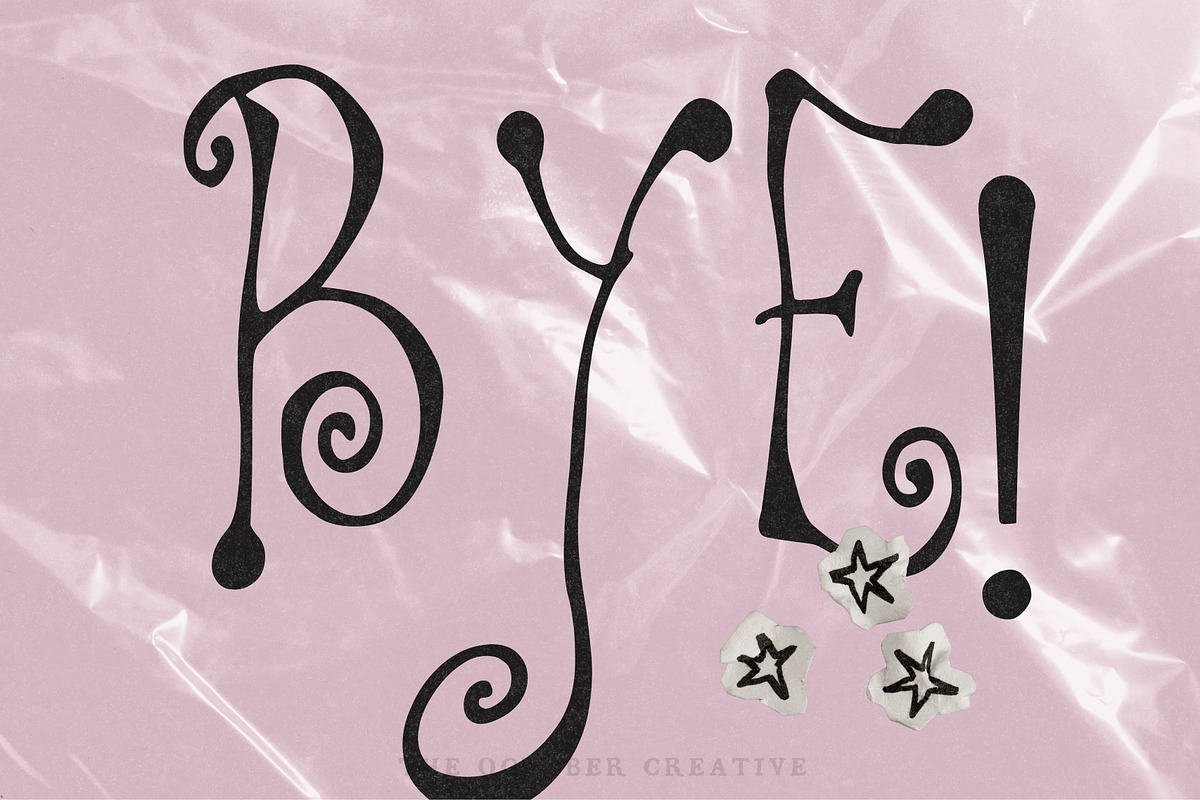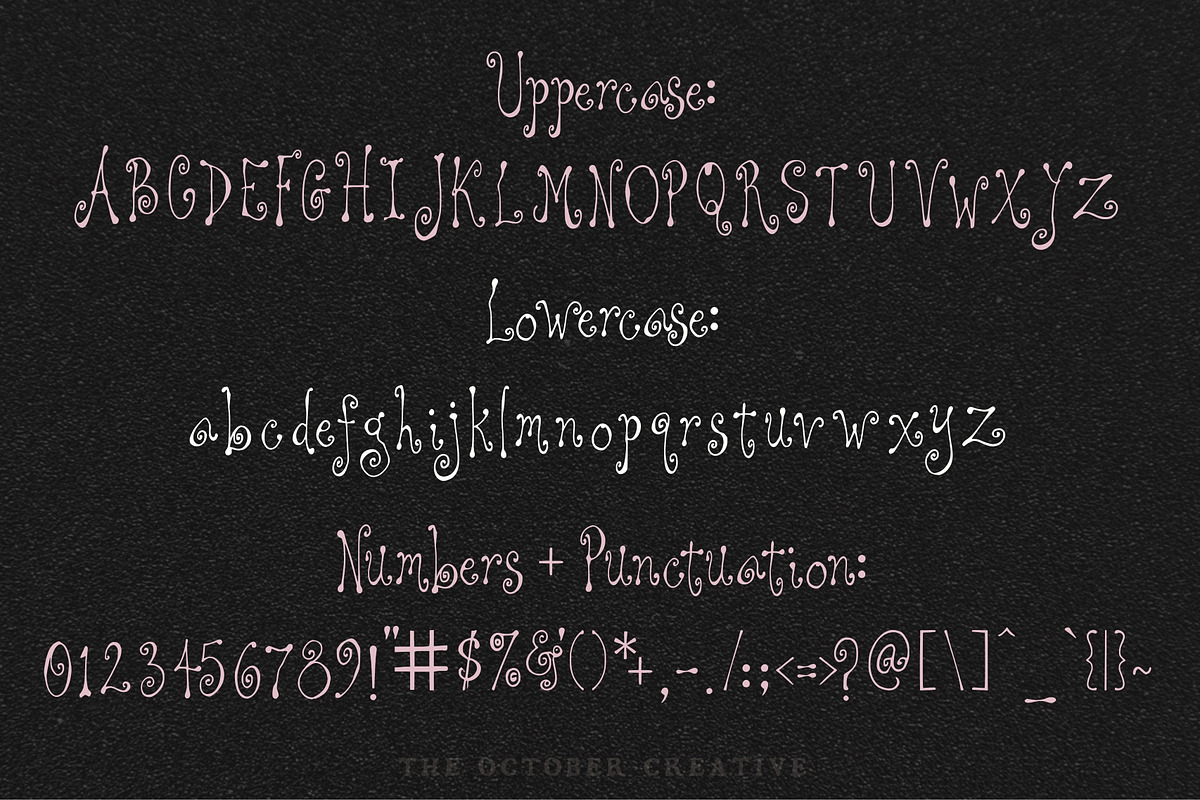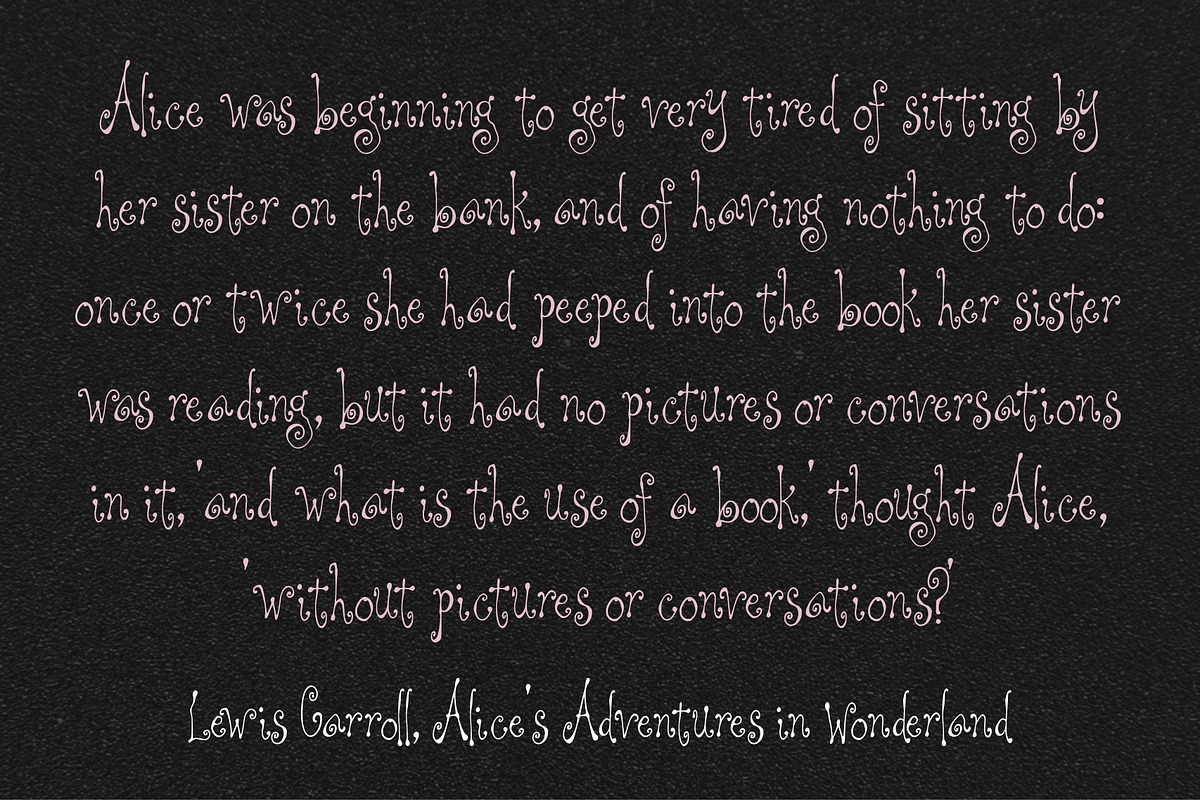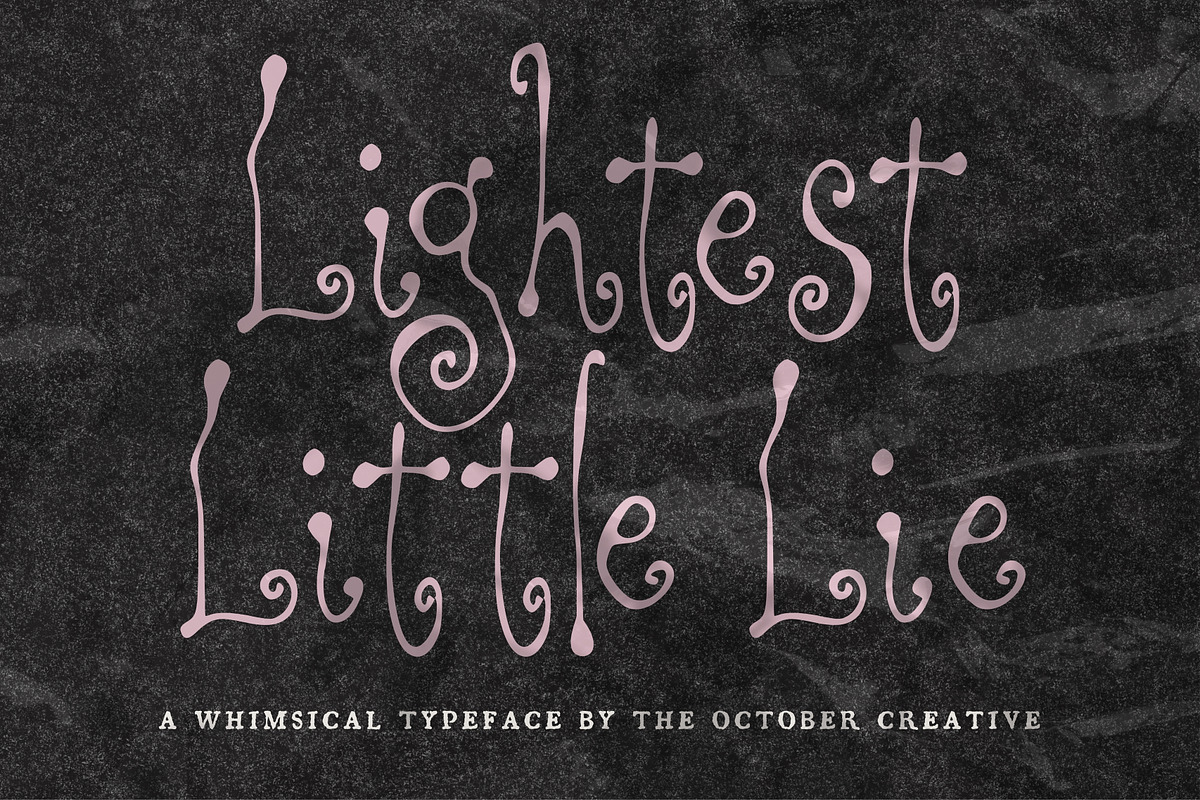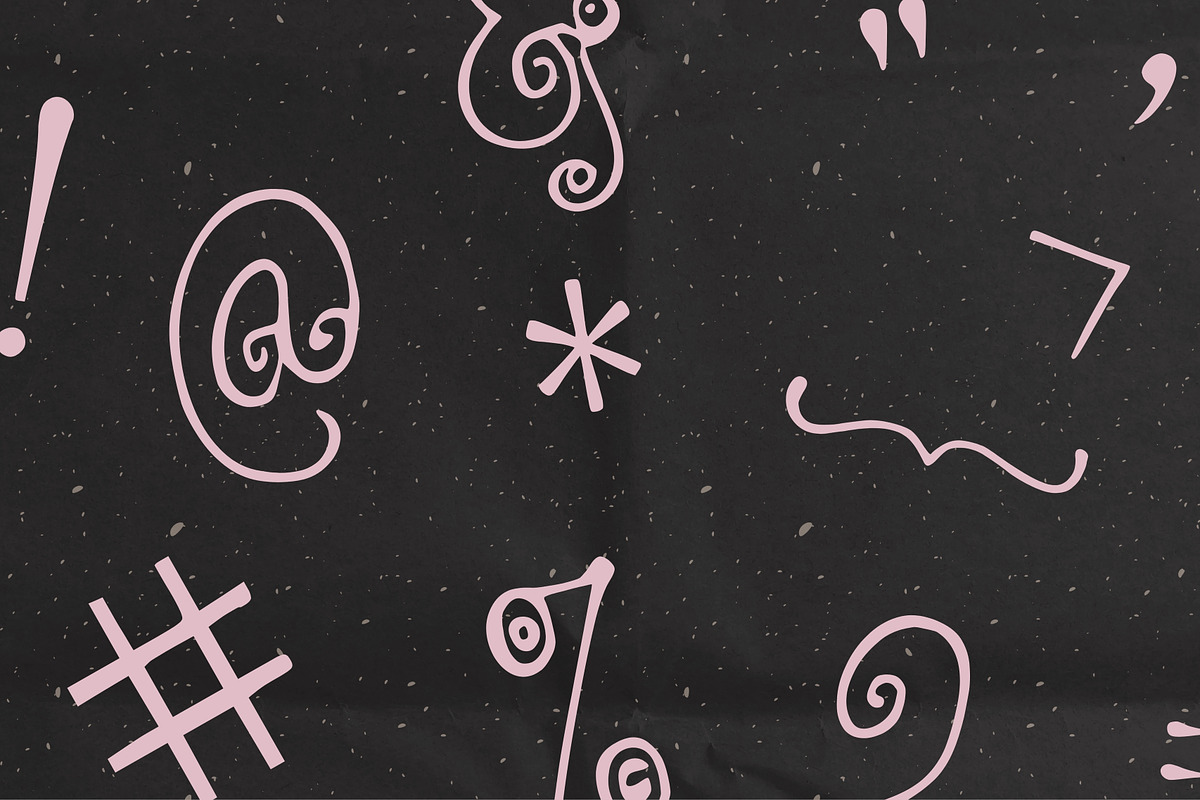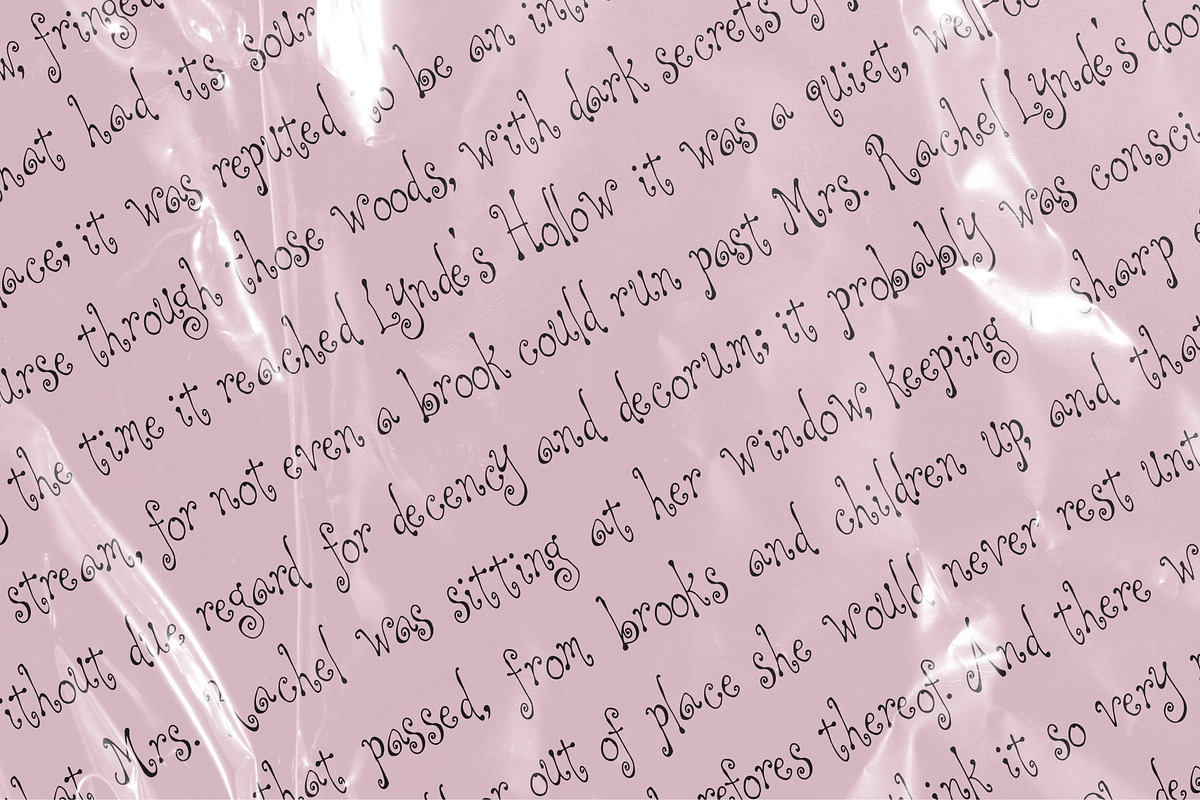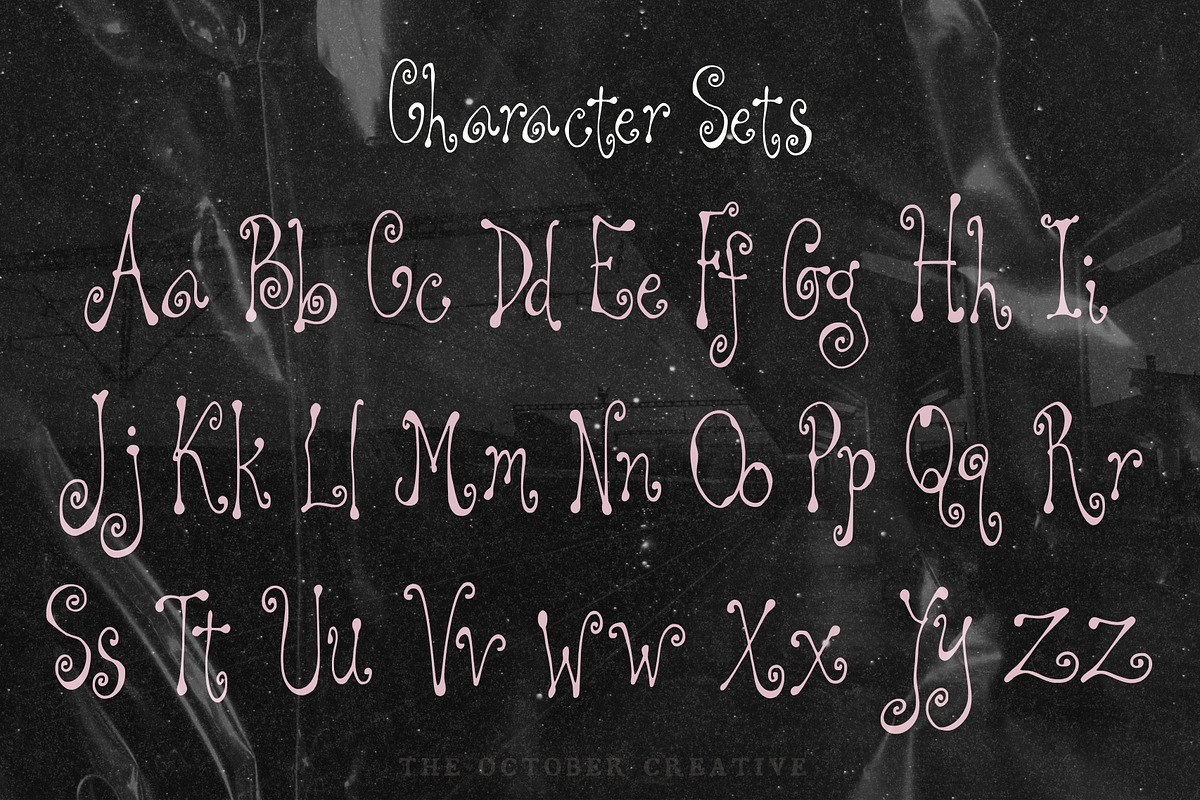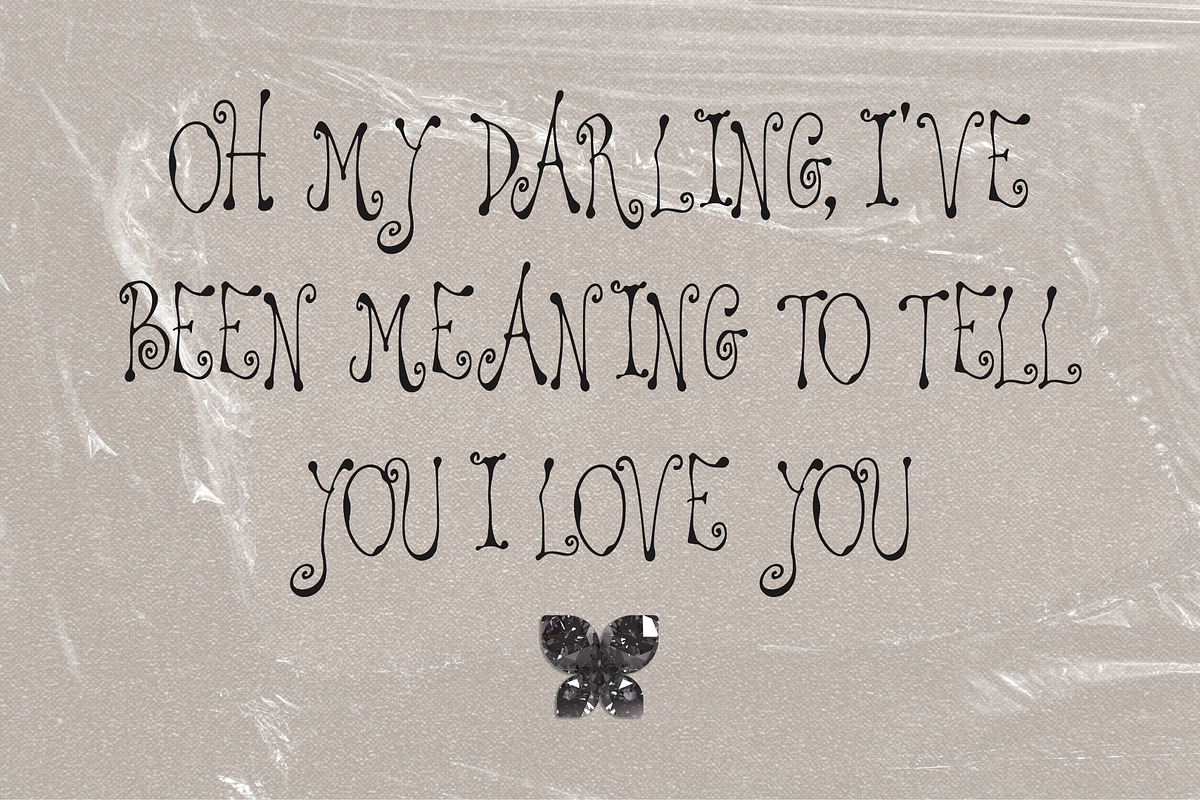
Lightest Little Lie Curly Display
Lightest Little Lie is a curling display font with light strokes, spirals at the terminals, and the calmest baseline of the curly faces. It fits journal stickers, planner headers, stationery sets, and quiet print titles.
Uppercase A to Z, lowercase a to z, numerals 0 to 9, and every standard keyboard punctuation mark and symbol: ! " # $ % & ' ( ) * + , - . / : ; < = > ? @ [ \ ] ^ _ ` { | } \~
Curly quotes and apostrophes (‘ ’ “ ”), en and em dashes, an ellipsis, and a bullet.
Accented letters: À Á Â Ã Ä Å Ç È É Ê Ë Ì Í Î Ï Ñ Ò Ó Ô Õ Ö Ù Ú Û Ü and their lowercase forms.
English, plus the accented vowels, Ñ, and Ç used in names and everyday words in Spanish, French, Italian, Portuguese, German, and Dutch. Not included: ß, Æ, Ø, Œ, and the upside-down ¿ and ¡.